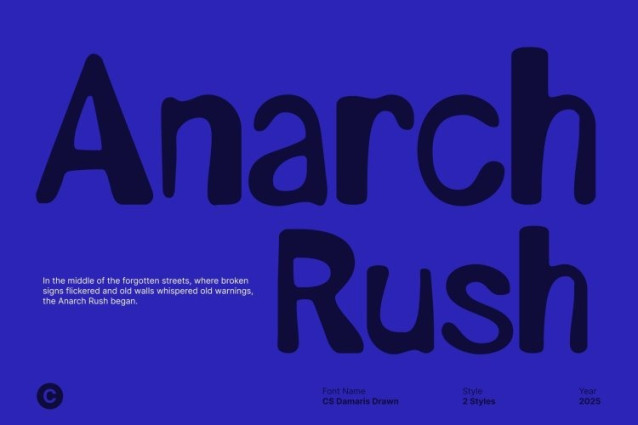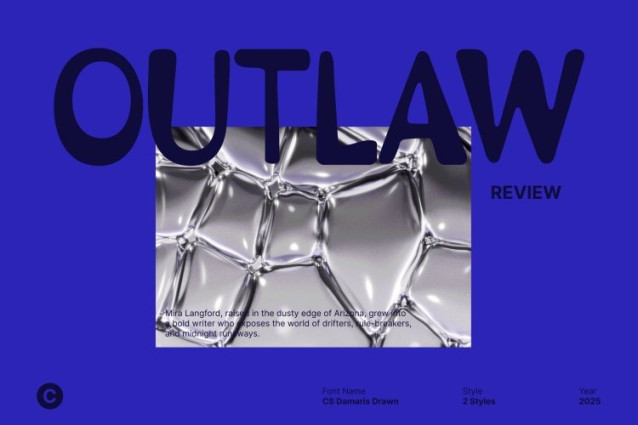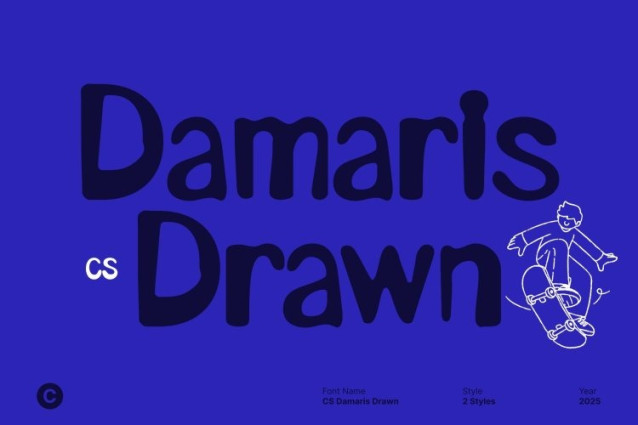
CS Damaris Drawn Font
CS Damaris Drawn Font – Playful and energetic, this fun display font set features bold strokes and friendly, approachable shapes that instantly capture attention. Its lively proportions and cheerful construction create a joyful typographic voice, making every word feel expressive, upbeat, and full of character. The font naturally communicates warmth and positivity, perfect for designs that aim to feel youthful and engaging.
Drawn Texture for Natural, Handcrafted Appeal
The drawn texture gives this font a natural, organic shape that feels relaxed and authentic. Subtle imperfections add charm and artistic depth, making each character look handcrafted rather than mechanical. This texture softens the bold strokes, resulting in typography that feels friendly, creative, and visually inviting.
Perfect for Youth Branding and Casual Designs
Ideal for youth branding, greeting cards, playful packaging, posters, school projects, and casual creative work, this font adapts beautifully across both print and digital media. Its bold yet soft appearance ensures high readability while maintaining a fun and informal tone.
Joyful, Natural, and Creatively Expressive
By combining bold display forms with a natural drawn texture, this font delivers a perfect balance of strength and softness. It’s an excellent choice for designers who want a fun, approachable, and artistic font that brings energy, creativity, and personality to every design.CS Damaris Drawn – Fun Display Font with Natural Drawn Texture
Energetic Letterforms Full of Personality
Playful and energetic, this fun display font set features bold strokes and friendly, approachable shapes that instantly capture attention. Its lively proportions and cheerful construction create a joyful typographic voice, making every word feel expressive, upbeat, and full of character. The font naturally communicates warmth and positivity, perfect for designs that aim to feel youthful and engaging.
Drawn Texture for Natural, Handcrafted Appeal
The drawn texture gives this font a natural, organic shape that feels relaxed and authentic. Subtle imperfections add charm and artistic depth, making each character look handcrafted rather than mechanical. This texture softens the bold strokes, resulting in typography that feels friendly, creative, and visually inviting.
Perfect for Youth Branding and Casual Designs
Ideal for youth branding, greeting cards, playful packaging, posters, school projects, and casual creative work, this font adapts beautifully across both print and digital media. Its bold yet soft appearance ensures high readability while maintaining a fun and informal tone.
Joyful, Natural, and Creatively Expressive
By combining bold display forms with a natural drawn texture, this font delivers a perfect balance of strength and softness. It’s an excellent choice for designers who want a fun, approachable, and artistic font that brings energy, creativity, and personality to every design.